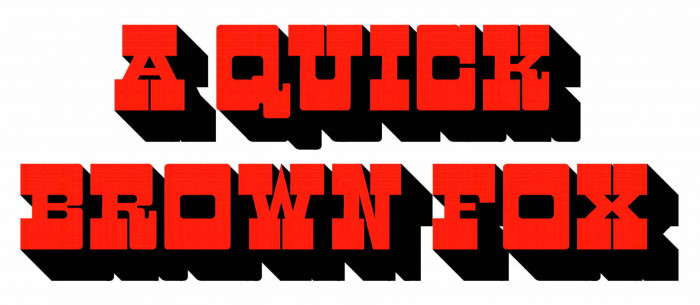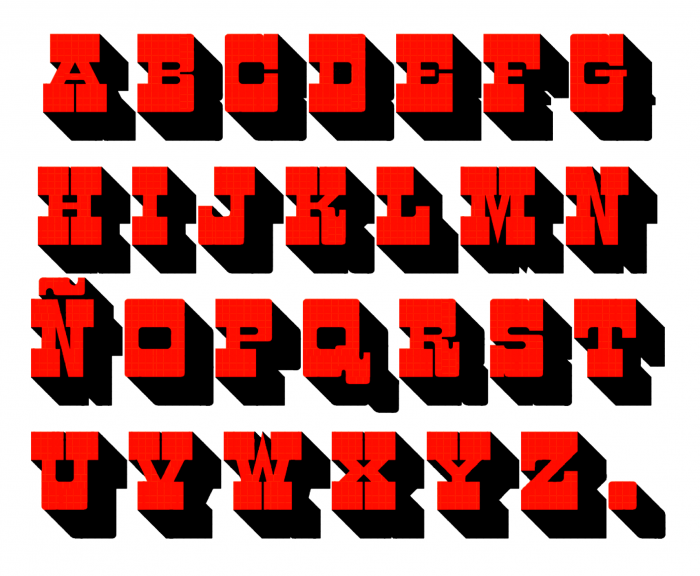
Then I thought "How about adding a shadow? Just a little shadow for zarzaparrilla..." Hmmm, well, it was a bit more complicated than it may seem at first... But finally here it is! Ta-da-daaa! (-Phew-)
A lovely callback to the classic cowboy movie posters~
Nice and heavy western font. The samples look amazing. 10/10
Oh wow, this looks really good, that shadow suits this chunky font so well!
@time.peace, @Frodo7 and @four: Thanks a lot for your always kindly comments, compañeros! I've tried to keep the colors from overlapping, which has been laborious on some glyphs. Such a thick shadow was somewhat daring, but I am very pleased with the end result.
Haha yes... the revival of Gonzales Pioneer...
But with an S glyph - different, some the same. Great work!
@ 99melloja: Wow! Thank you very much for clarifying the authentic origin of this font! Now that I know, I would like to record that it is inspired by "Pionner" (1969), the work of designer Francisco Gonzales. When I started to build it, it only had a few letters (found in the attached image). The rest of the glyphs are totally invented by me, following the style that the others had. In addition to the differences noted, there are also some more in the width and final design of many other letters (I indicate C, G, M, T, W, Y, of the few that I have been able to compare). I would very much like to find a full original character set so that I can improve my font, but haven't found it yet, can anyone help me with this, please? Thanks.
Hi Antonio, Jay (99melloja) had pointed me to your Zarzaparrilla – excellent work, congrats! I had added your FontStruction to the database of Fonts In Use the other day. Thanks for disclosing your source of inspiration. As you probably know, that’s a detail from one of the Peanuts School Year Date Books designed by Determined Productions. (We have a draft about these items at Fonts In Use, but it’s unpublished for now.) I have adjusted the description of Zarzaparrilla to reflect this. For your request: I will see what I can do. Gonzales Pioneer is an exclusive alphabet drawn for Photo-Lettering, Inc. (PLINC), a nw defunct typesetting company in New York. It will be difficult to find a specimen with a full glyph set, but I’ll try to dig up at least a few more letterforms. The PLINC assets including the original film fonts were acquired by House Industries.
looks nice , very creative